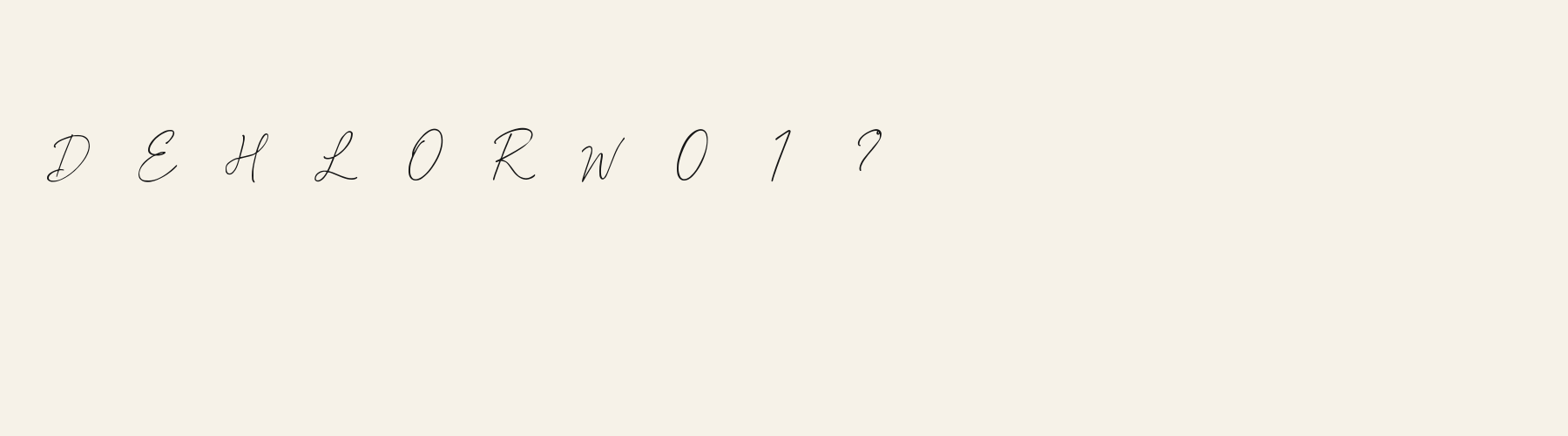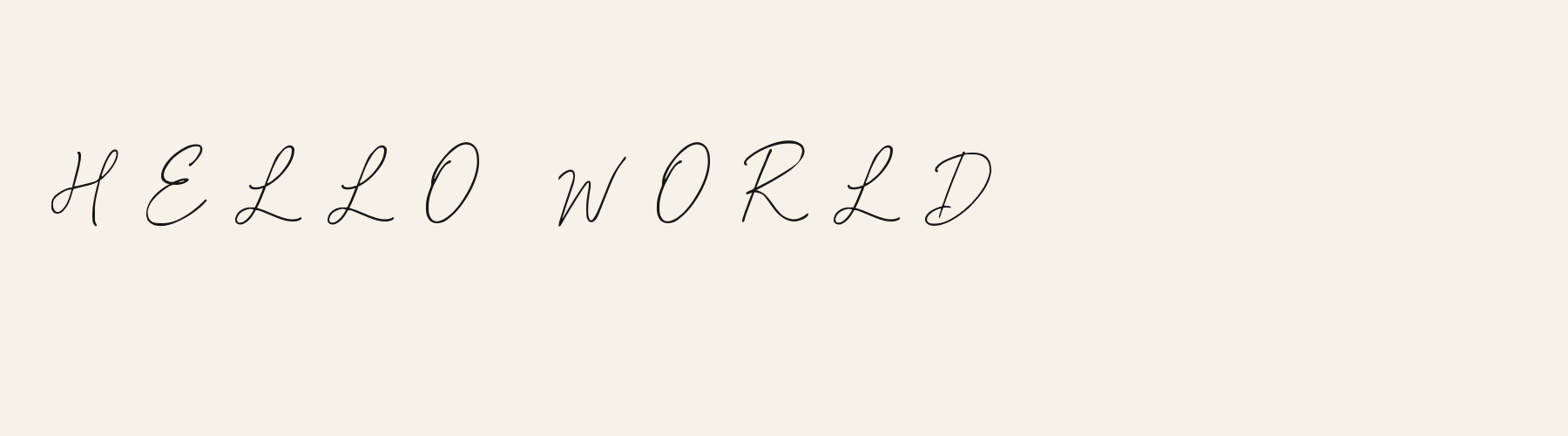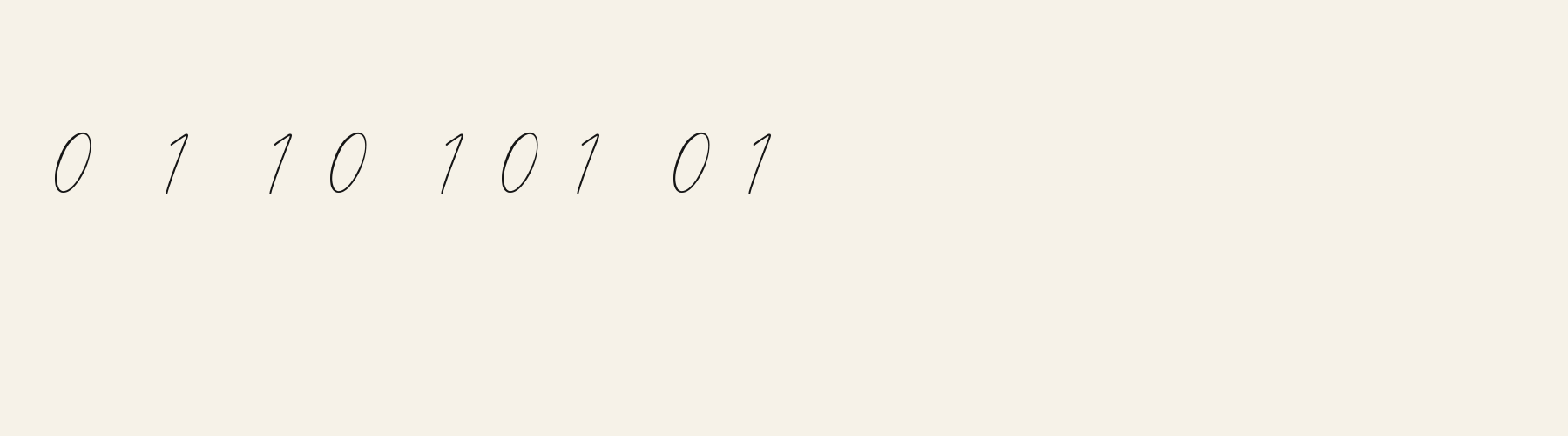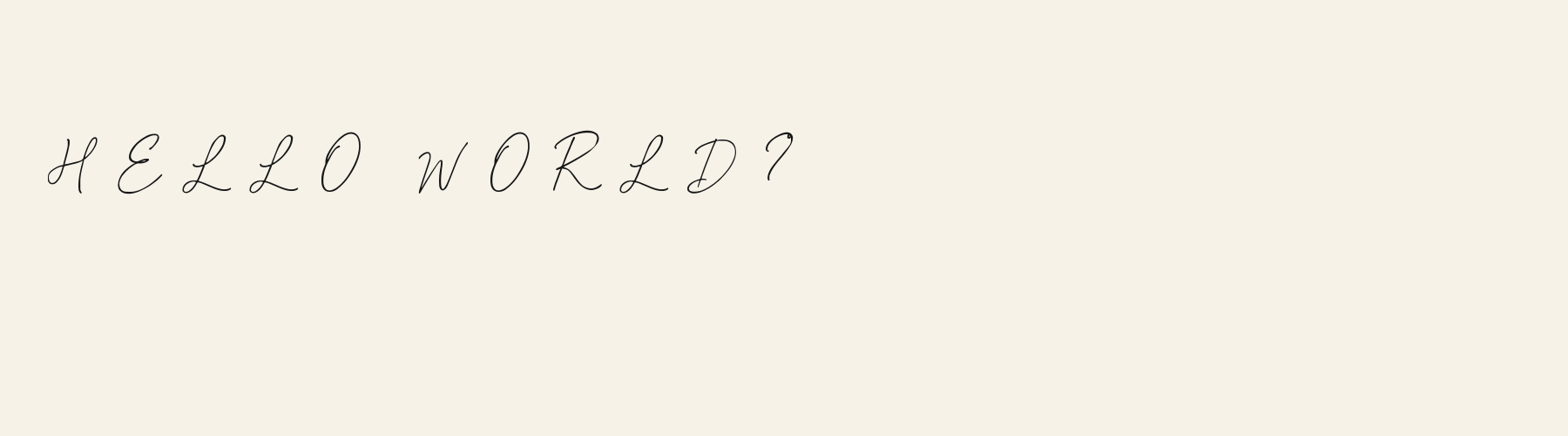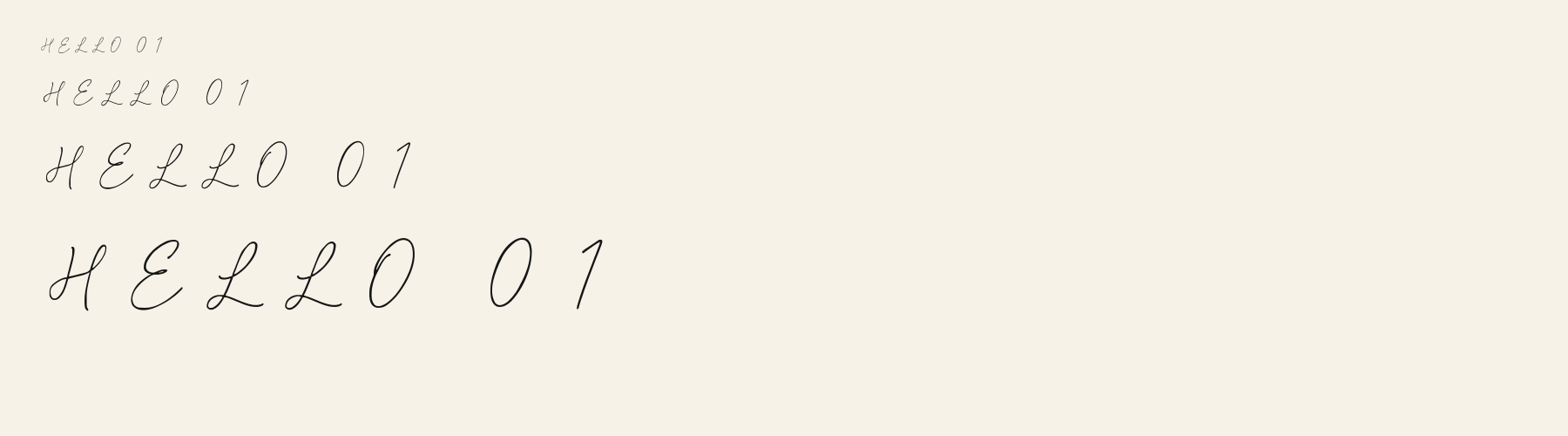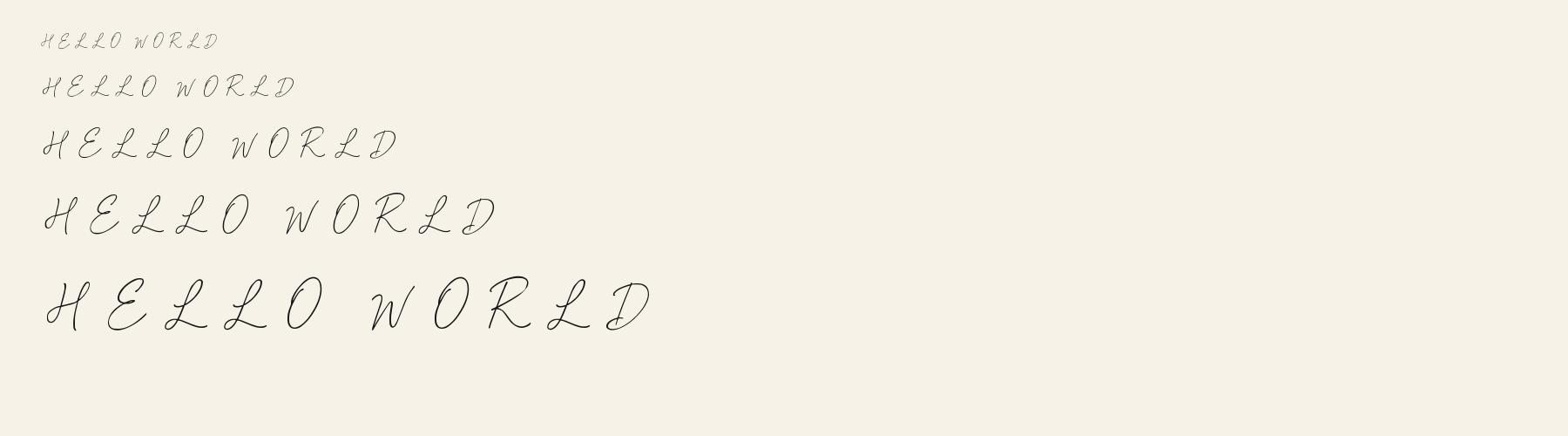
Script Monoline Loop Narrow Oval Signature Font
Script Monoline Loop combines fine, even strokes with a pronounced rightward lean and generous open space inside its capitals.
Narrow Oval Signature Letterforms
Script Monoline Loop combines fine, even strokes with a pronounced rightward lean and generous open space inside its capitals. The H crosses into a narrow upper loop, while its left stem curls near the baseline. The L repeats a tall loop before sweeping into a long, low tail, giving repeated letters a rippling rhythm. The R pairs a broad upper bowl with a curved leg that turns upward at the end. Smooth edges and restrained stroke weight keep these flourishes delicate. The result feels composed and personal, with enough movement to give a short line a handwritten presence.
Preview your actual Latin wording, checking repeated L tails, the H cross-stroke, and spaces around sweeping capitals. Inspect lowercase joins separately, since these specimens show uppercase lettering. For accented Latin or other scripts, verify character availability and the appearance of any fallback font.
Try this face for a short title or signature, with a plain sans serif for descriptions and supporting labels. Its fine strokes and extended capital tails benefit from a companion with compact shapes, stronger weight, and a steady baseline rhythm.
Script Monoline Loop: letterforms and layout
H
Compare smaller and larger previews to check whether the fine strokes remain distinct. Watch the repeated L tails and the narrow upper loops, which become more prominent as the lettering grows.
In this uppercase phrase, Script Monoline Loop uses fine, smooth strokes, elongated loops on H and L, and broad curved tails. Choose it when the lettering should feel light and measured.
Script Monoline Loop font in use
WITH LOVE
Card or invitation. Fine strokes and gently extended capital tails give a short invitation heading a personal, quietly decorative presence. ROSE OIL
Product label. Open oval forms and smooth, slender strokes suit a spacious product label with only a few words. HER WORLD
Book or album cover. The leaning capitals and sweeping R leg give a short cover title an intimate, handwritten sense of movement.
The scenes are illustrations drawn on this page with Script Monoline Loop itself, not client work.
How this page was made. Script Monoline Loop is a FontGenerator library font made with AI; before release its letters were read back one by one by independent automated checks. The design notes were written by AI from the specimen images and checked against them by a second, independent pass; font measurements come from the font file. Preview sizes and spacing are comparison settings.
About Script Monoline Loop
With an x-height of 51.6% of the cap height, its lowercase stands above the 48.5% median for script fonts, taller than 39 of the 53 other script fonts. Ascenders on b, d, h, k and l rise 5% above the capitals, and descenders on g, j, p, q and y drop 38.9% of the cap height below the baseline, shallower than 46 of the 53 other script fonts. It sets wide: an average lowercase letter, spacing included, is 76.8% as wide as the capitals are tall (an average capital, 83.4%), 19.8% more than the median for script fonts, so the same words take a longer line. The o is wider than it is tall, 1.28 to 1, and W is the widest capital, at 1.08 times the width of H. The O stops 3% of the cap height short of H and sits on the baseline.
The letters lean roughly 20° to the right. Ink covers 9.3% of each lowercase letter's box (its advance width by the cap height), lighter than 52 of the 53 other script fonts.
Its 95 characters include 52 Latin letters, plus 43 figures, punctuation marks and symbols; there are no accented Latin letters beyond A to Z. The word space measures 52.1% of the cap height, and the blank space either side of a lowercase letter takes up 4.2% of its width. The font carries no kerning, so spacing comes from each letter’s own side bearings. The figures have different widths, so columns of numbers set in Script Monoline Loop will not line up exactly.
- Structure
- Connected lowercase, controlled entry and exit loops, restrained capital flourishes
- Consistent single black line with smooth joins and no brush texture
- Signatures, labels, invitations and compact display lines
- What fonts pair well with Script Monoline Loop?
- Geo Sans Round (sans serif), Ledger Sans (sans serif) and Candy Heart Slab (serif) are drawn on a different letter structure, so Script Monoline Loop can carry the headings while one of them sets the text. Each has its own page with a type tester for trying the pair.